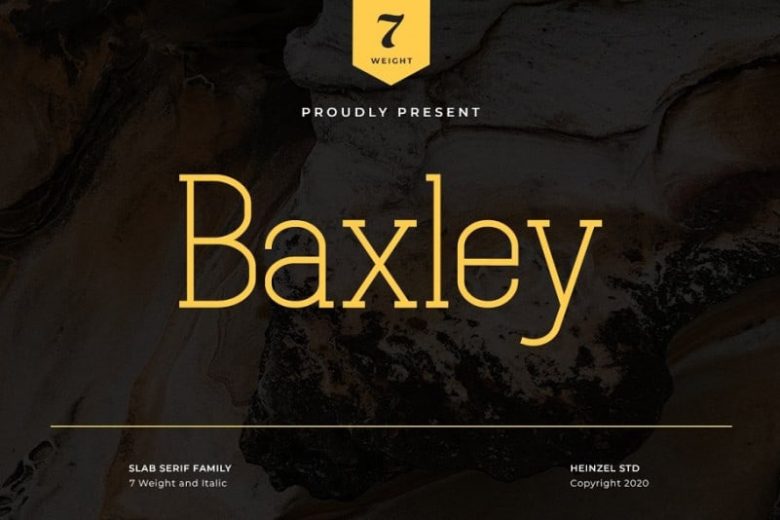
Baxley Slab Serif Font
Baxley Slab Serif is vibrant and strong in all of its seven weights, and features true italics and multilingual language support. Baxley would perfect for branding, logos, headlines, Captions.
The different weights give you full range to explore a whole host of applications, from tech startup, local events to sports matches.